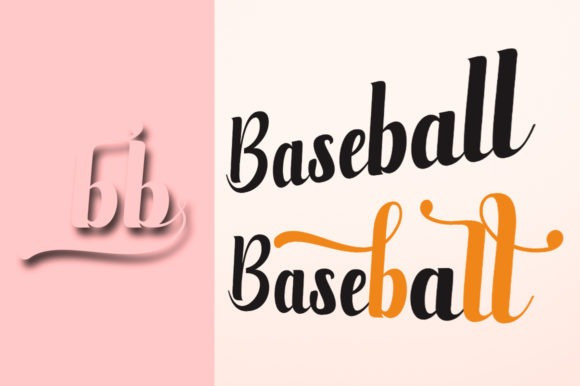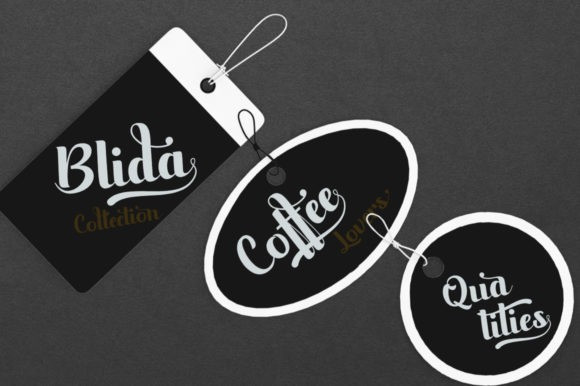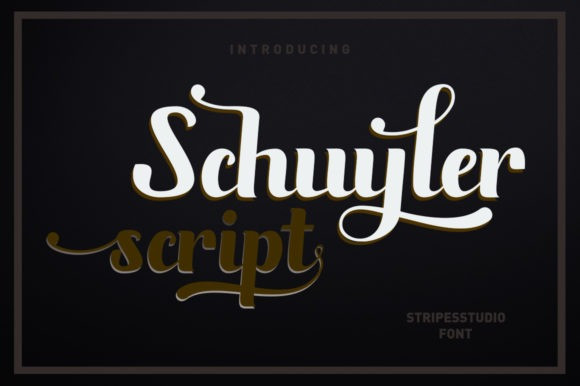
Schuyler Script Font
Schuyler Script Font is a modern script font with a beautiful vibe. Get inspired by its timeless authenticity. It would be a perfect choice to design posters, affiches, logos, t-shirt and magazine prints, eye-pleasing typographic designs and more.